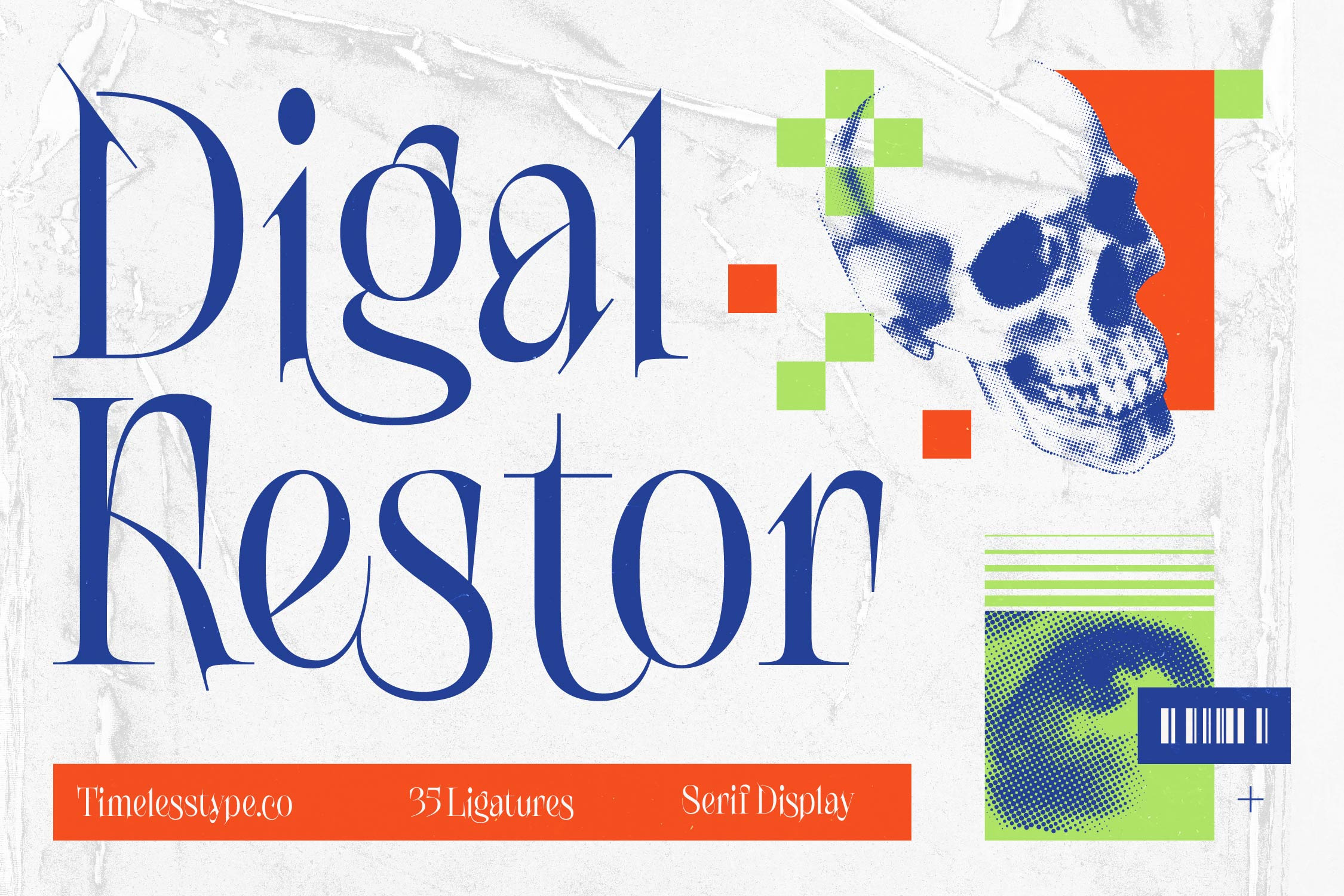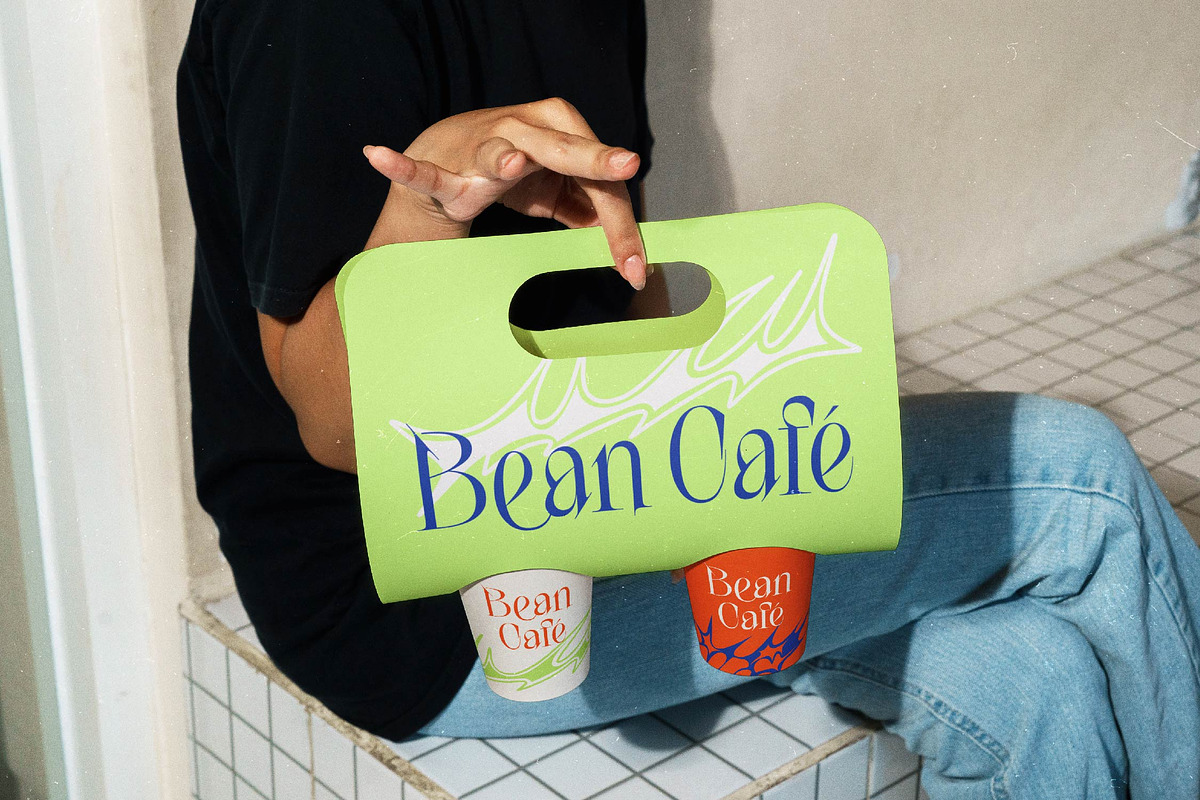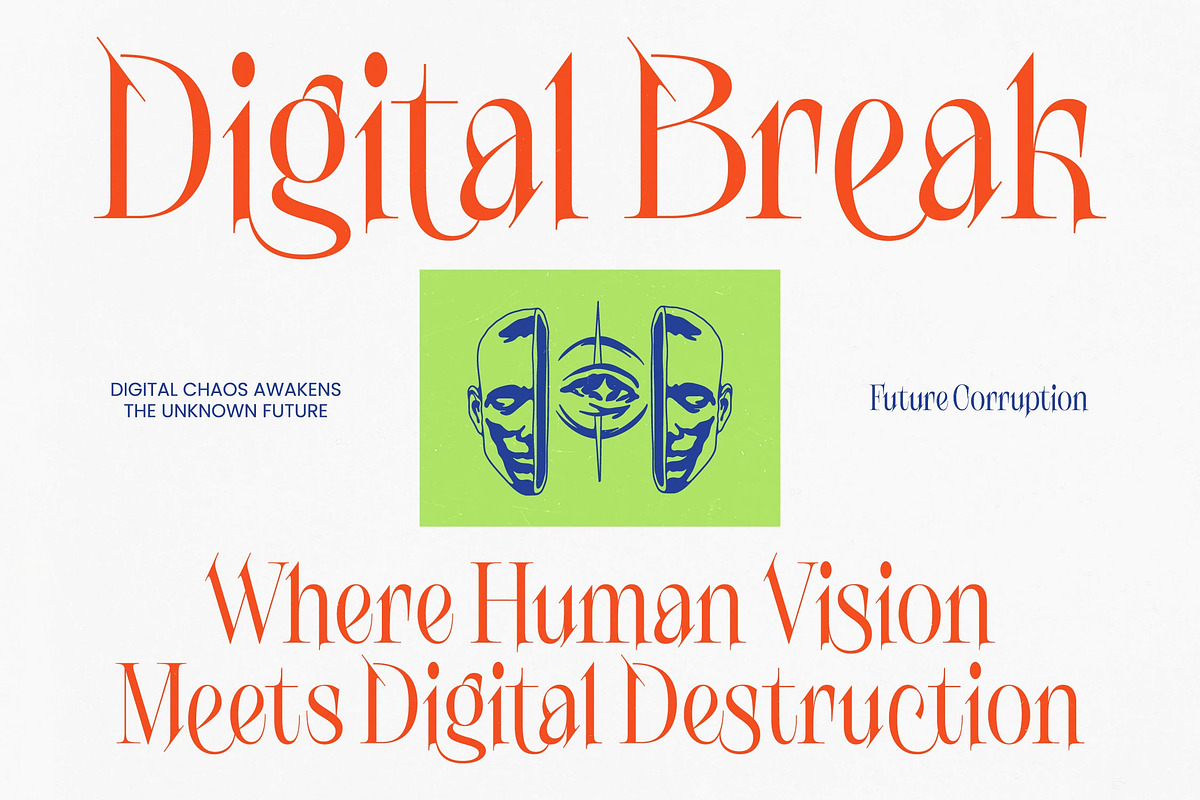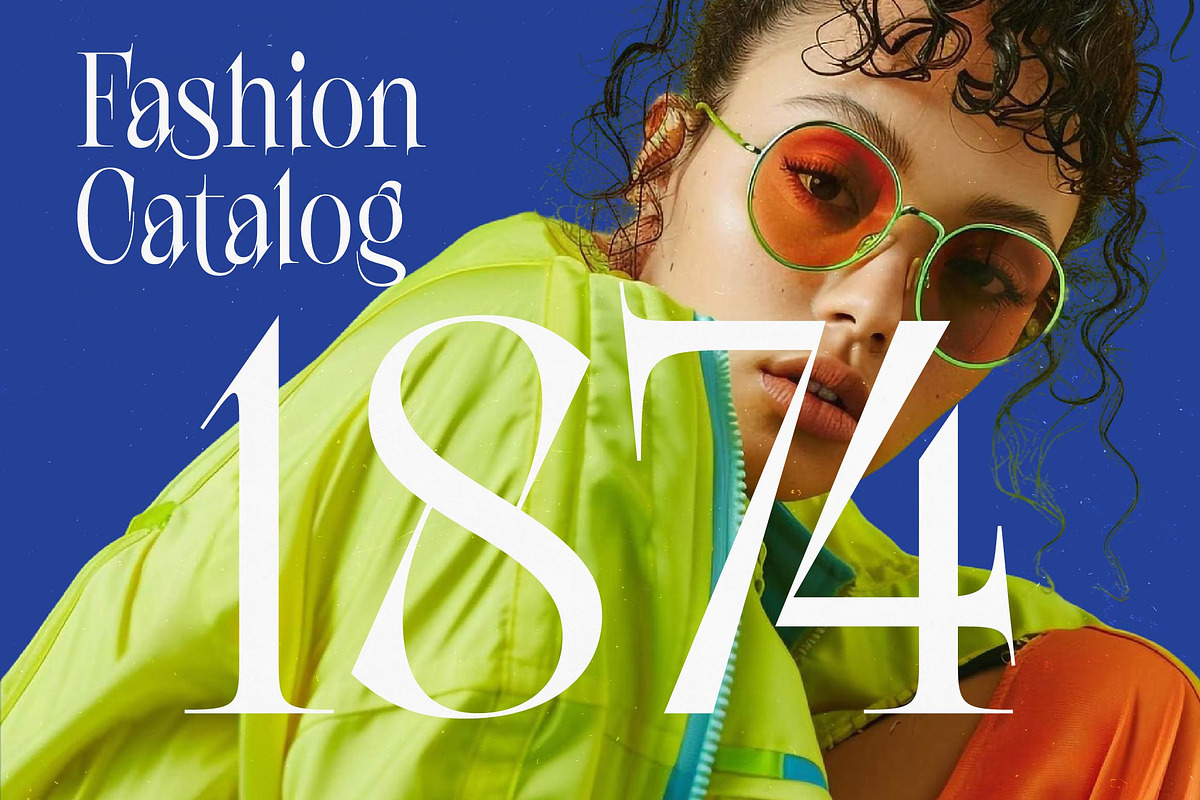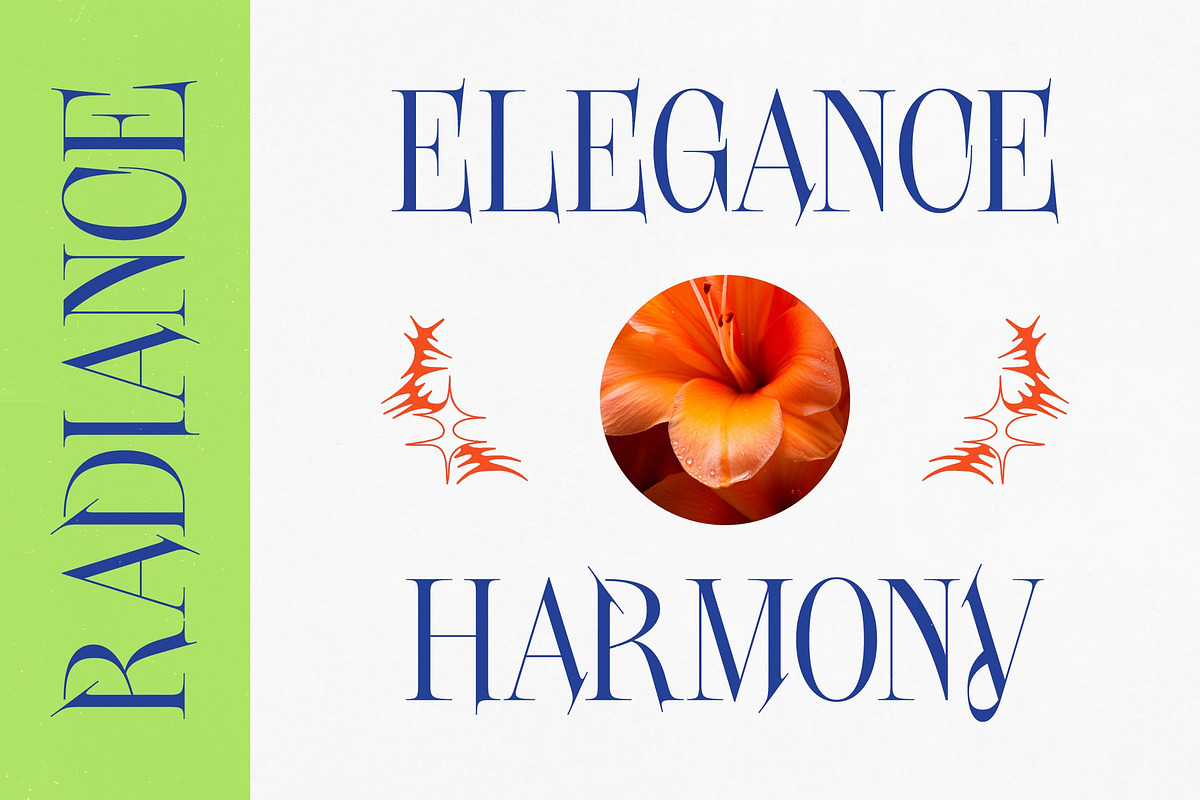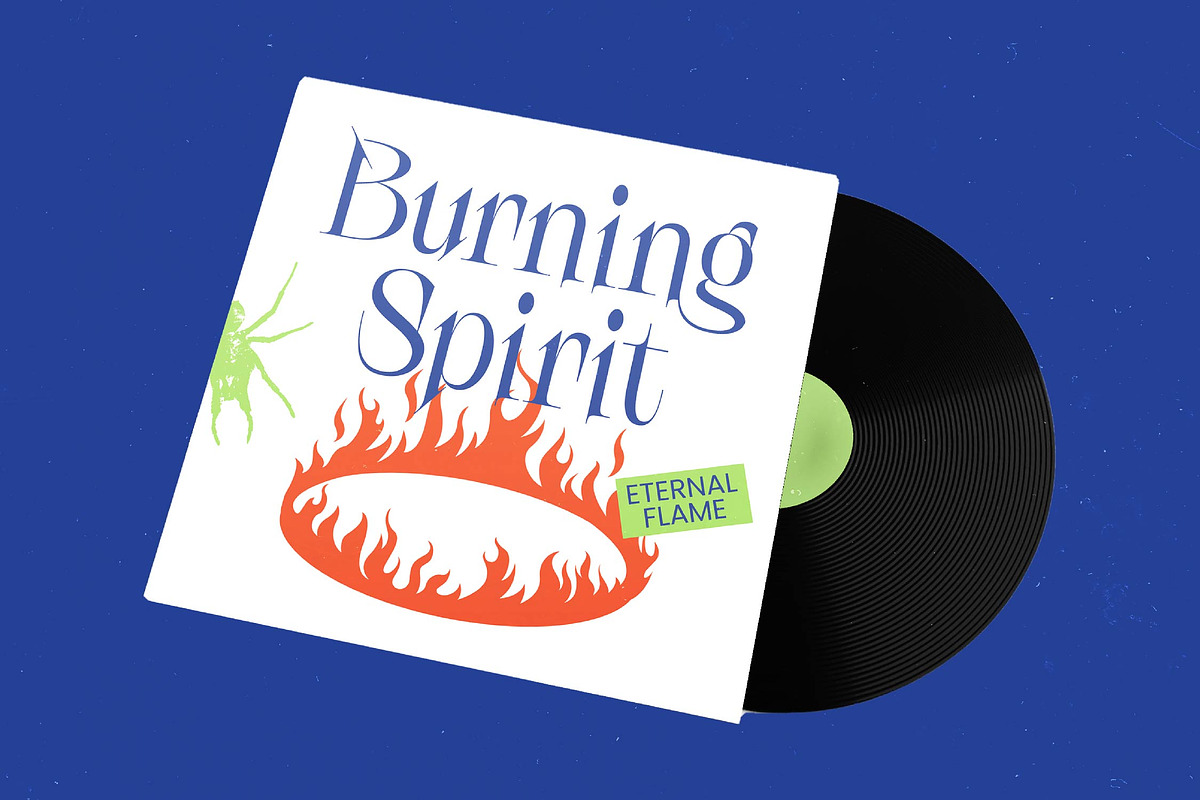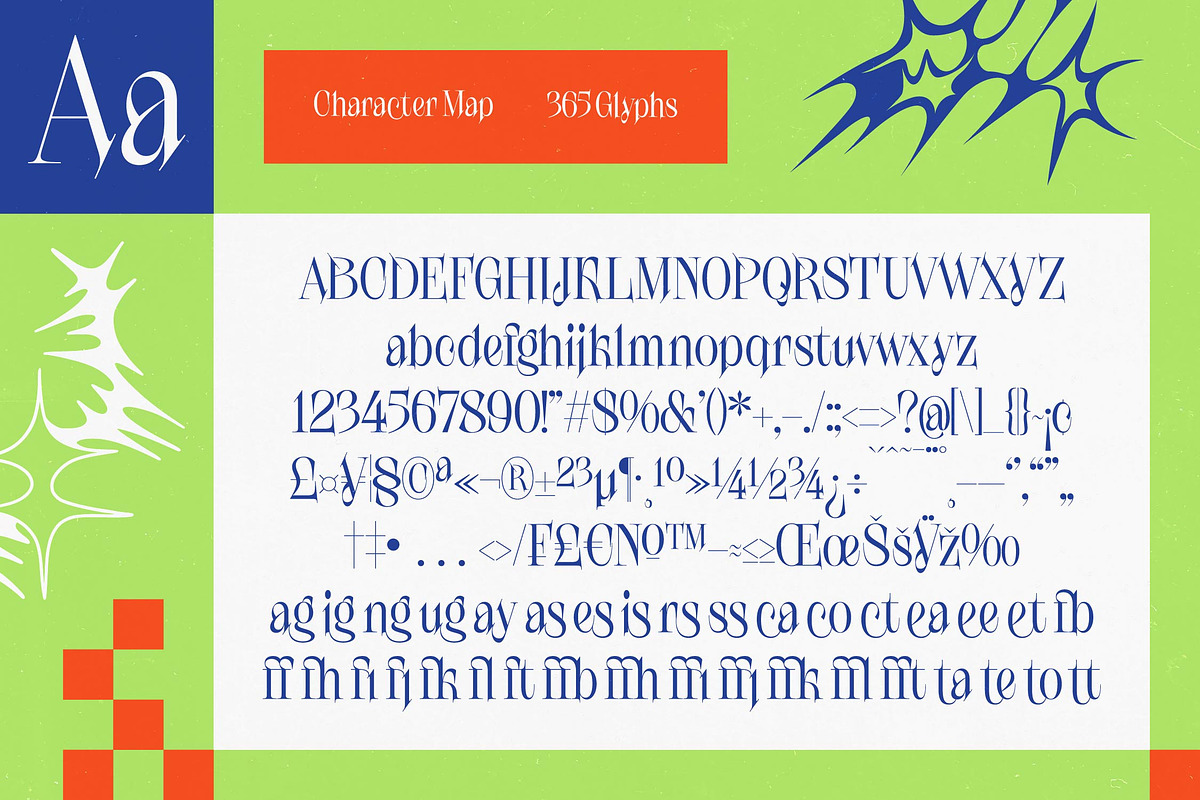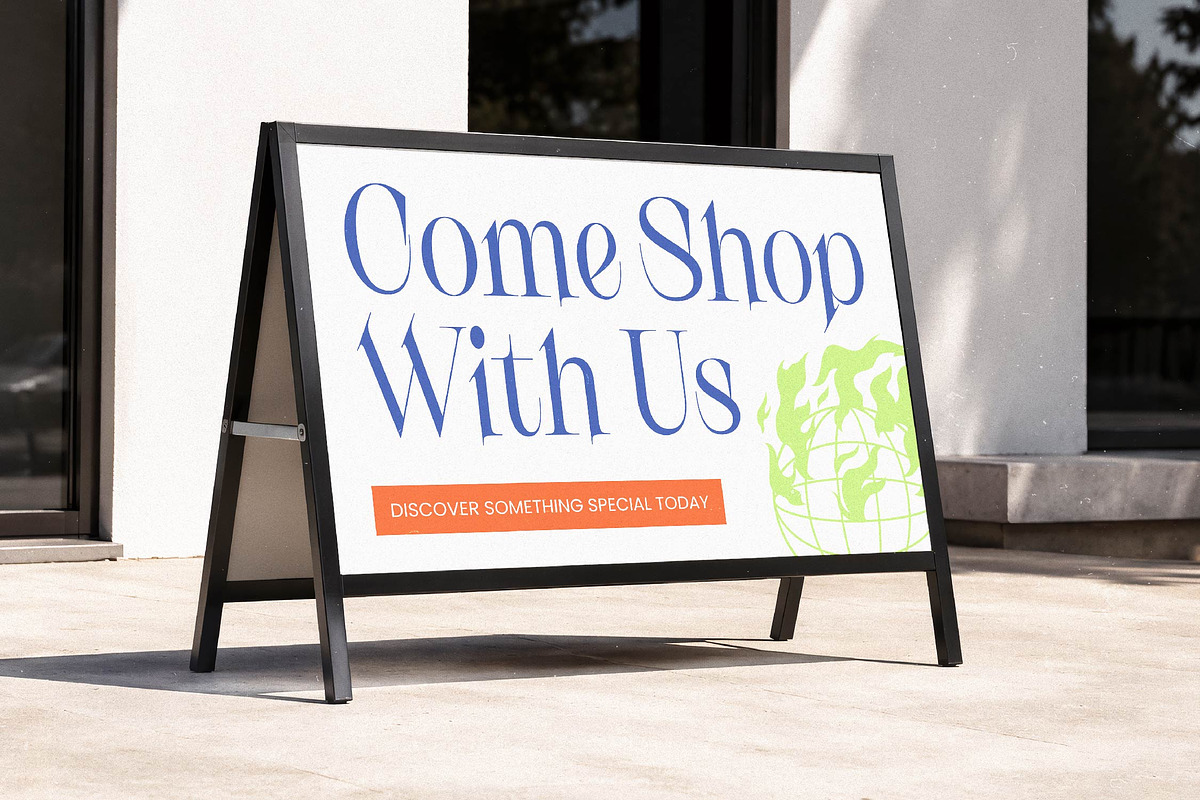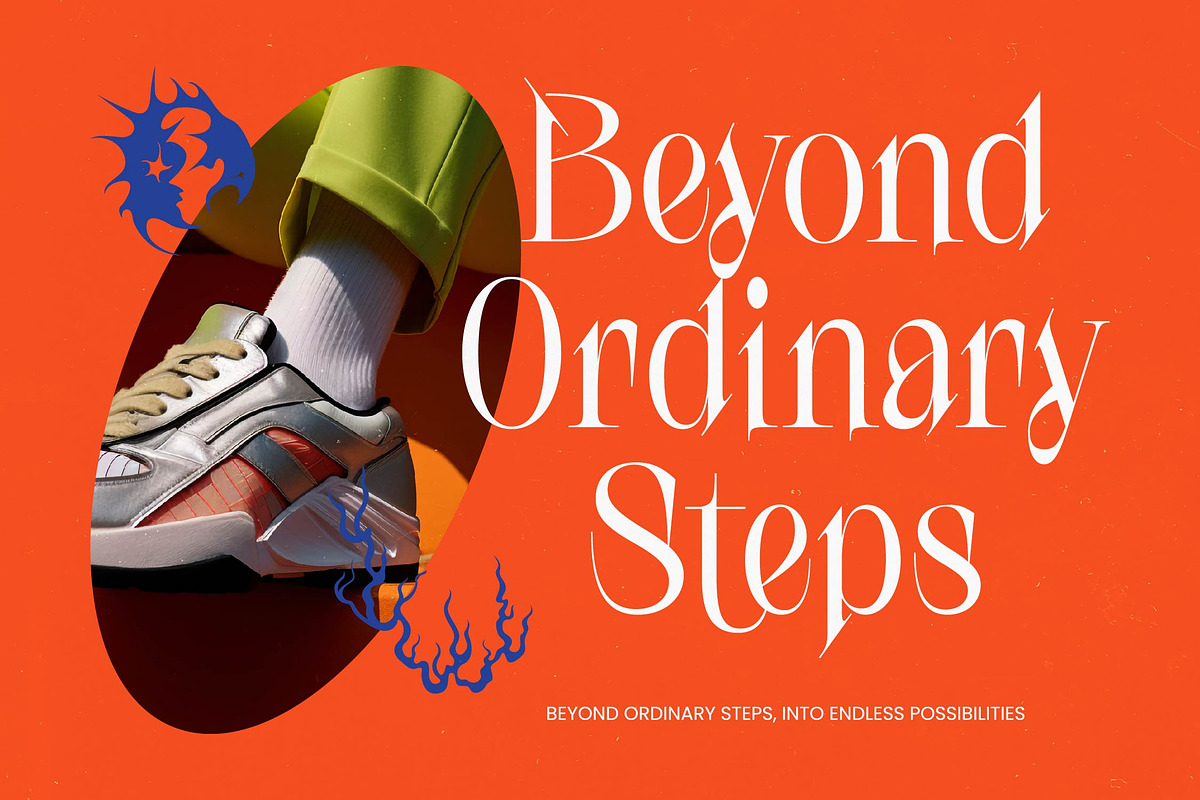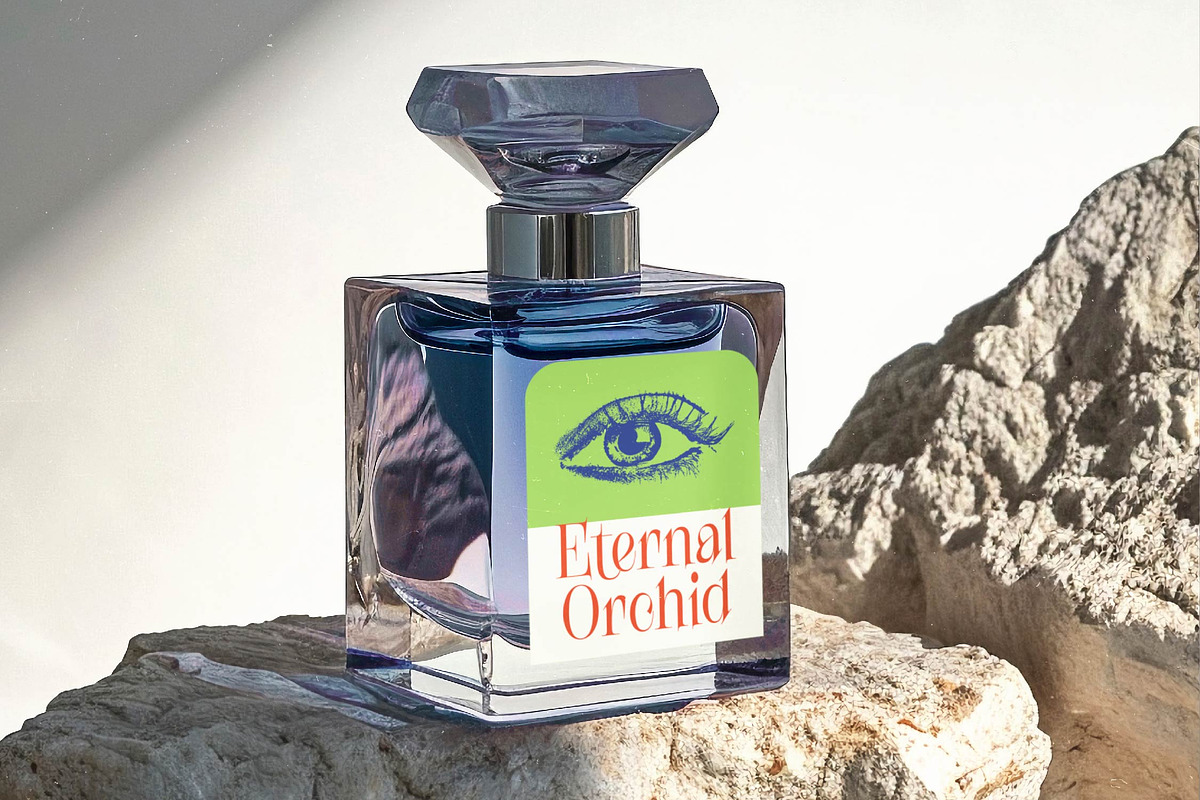
Digal Kestor Serif Display Font
Digal Kestor - Serif Display Font , Elevate your creative vision with the unparalleled elegance of Digal Kestor - Serif Display Font, a typeface that defines modern luxury. This high-contrast masterpiece combines sharp serifs with delicate hairlines, creating a sophisticated aesthetic that demands immediate attention. Whether you are crafting a premium brand identity or a sleek editorial layout, this font offers the perfect balance of classical roots and contemporary flair.
Unlock limitless creative potential with the 35 bespoke ligatures that give Digal Kestor - Serif Display Font its distinctive, hand-crafted character. These expertly designed alternates allow designers to create unique typographic compositions that feel custom-made for every project. By integrating bold visual structures with artistic fluidity, this typeface serves as a versatile powerhouse for anyone seeking to establish a dominant visual presence in a crowded marketplace.
Expand your design horizons with a typeface engineered for unrestricted global communication and technical excellence. With its extensive multilingual support, Digal Kestor - Serif Display Font adapts seamlessly across global markets, making it incredibly versatile for international projects. This broad linguistic compatibility ensures that your brand message remains consistent and visually striking, regardless of the region or audience you are targeting.
Master the art of high-end presentation by choosing the perfect typographic partner for your most ambitious ventures. Digal Kestor - Serif Display Font is the ideal choice for luxury branding, fashion packaging, editorial headers, and upscale event invitations. It is perfect for designers who refuse to compromise on quality, providing a polished finish that transforms standard layouts into iconic works of art.